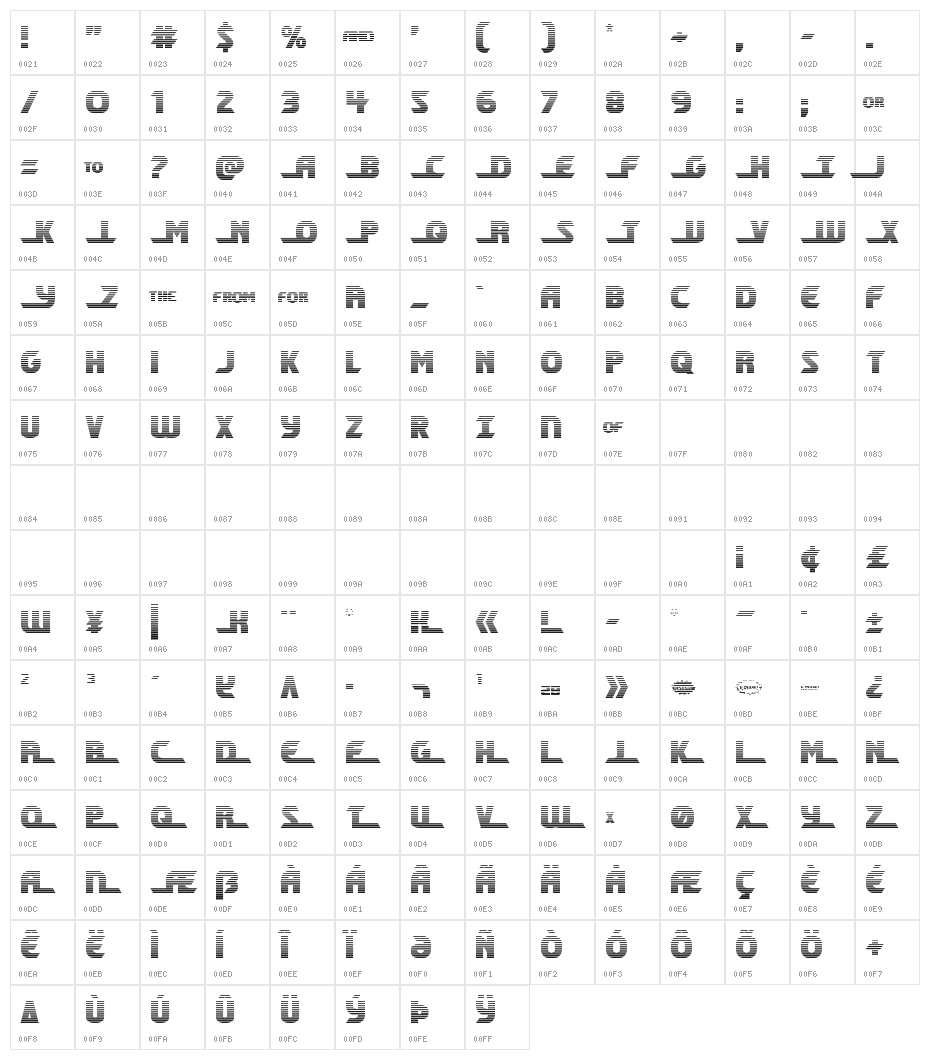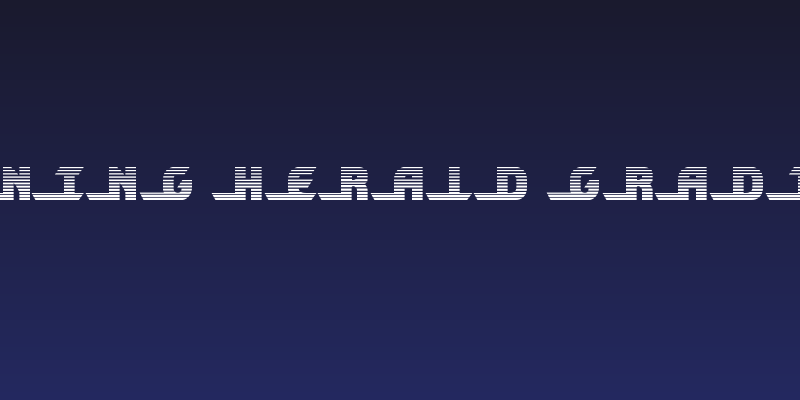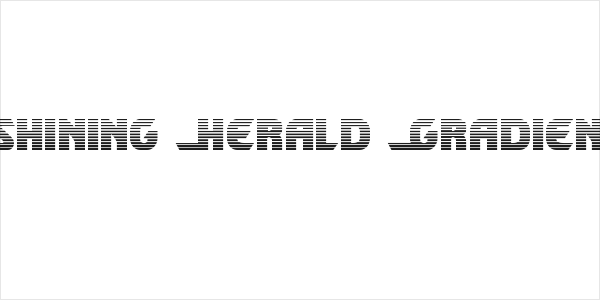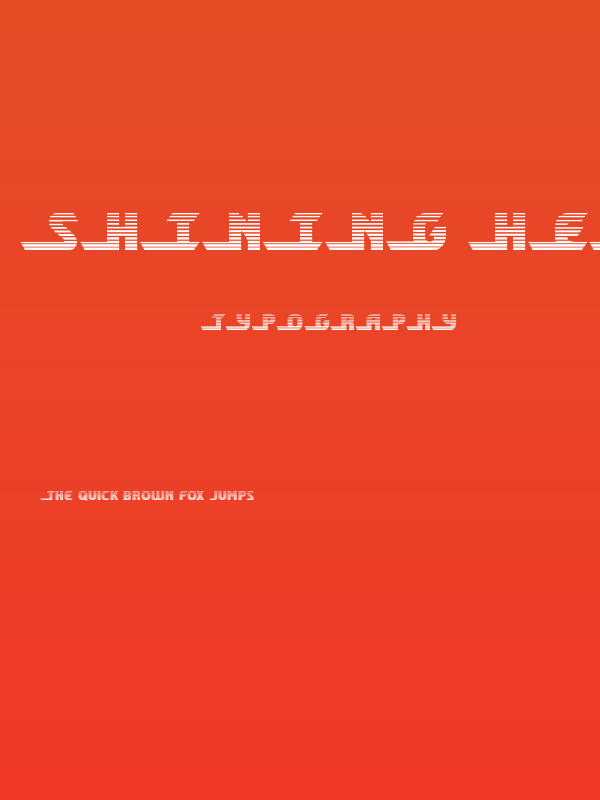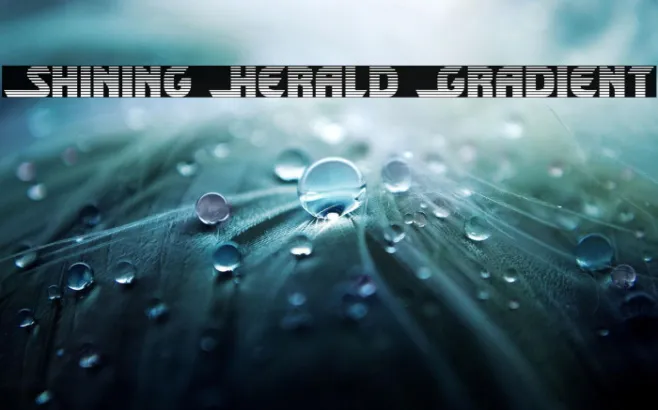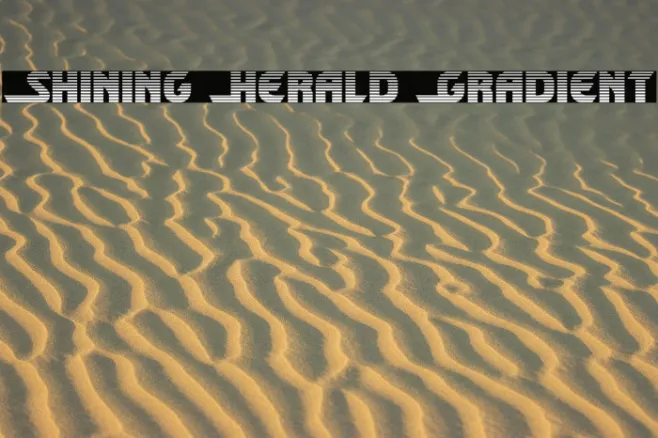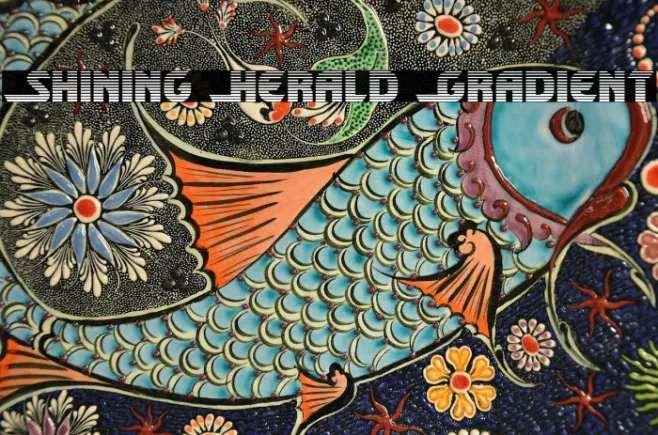
Shining Herald Gradient Font
Shining Herald Gradient Description
This font features a bold, modern design with a unique striped pattern that gives it a dynamic and futuristic appearance. The uppercase and lowercase letters are crafted with precision, maintaining a consistent line thickness throughout. The numbers and special characters follow the same design principles, ensuring uniformity across all elements. The font's distinct style makes it stand out, ideal for projects that require a contemporary and eye-catching typeface. Its geometric shapes and clean lines contribute to its overall modern aesthetic, making it suitable for various creative applications.